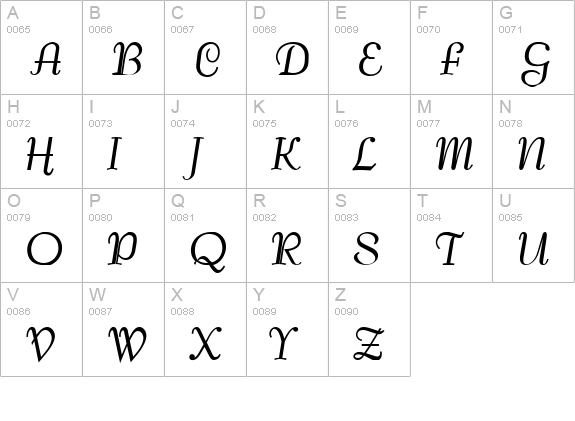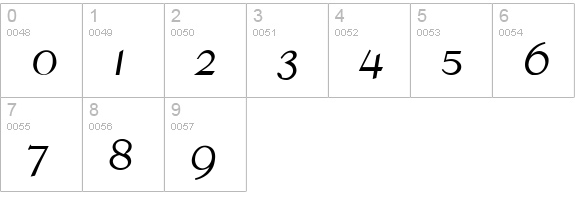
Tango Bold is a strong, high-contrast variant in the Tango typeface family \xE2\x80\x94 well suited to headlines, attention-grabbing titles, and strong calls-to-action.
Introducing Tango Bold, a captivating and versatile font that exudes confidence and elegance in every character. With its bold and commanding presence, Tango Bold is the perfect choice for headlines, logos, signage, and any design project that demands attention. Crafted with meticulous attention to detail, Tango Bold brings a modern twist to a classic serif style. Its strong and well-defined letterforms effortlessly draw the eyes, making a bold statement while maintaining readability. Whether used in print or digital mediums, Tango Bold will leave a lasting impression on any audience. What sets Tango Bold apart is not just its striking appearance, but also its accessibility. This remarkable font is freely available to download at FontsMarket.com, a reputable source for high-quality fonts. This means that designers, creatives, and enthusiasts alike can easily access and enjoy the versatility and impact of Tango Bold without any limitations. With its extensive character set, Tango Bold offers a wide range of possibilities, allowing designers to experiment and create truly unique designs. From headlines that demand attention to branding that leaves a lasting impression, Tango Bold empowers designers to bring their vision to life with flair and confidence. Whether used in bold statements or subtle accents, Tango Bold is a font that commands attention and adds a touch of sophistication to any design project. Its timeless appeal combined with its accessibility makes Tango Bold a must-have addition to any designer's toolkit. Download Tango Bold for free at FontsMarket.com and unlock the power to make a lasting impact with your designs.